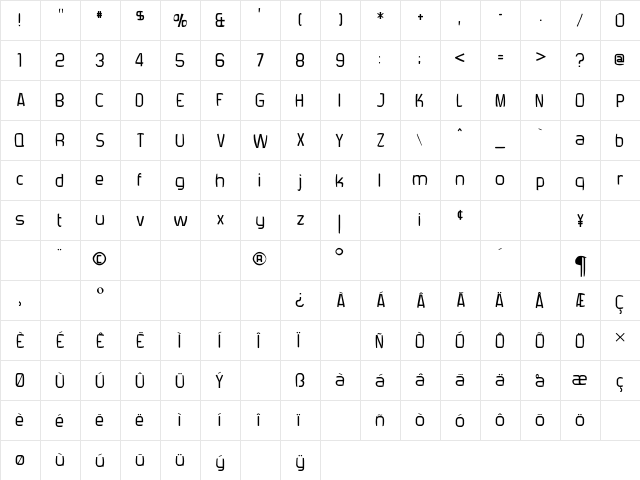
Forgotten Futurist Rotten Regular
Forgotten Futurist Rotten channels digital-age aesthetics through its sharp, structured letterforms — ideal for brands that want to signal innovation.
Pro Tip: Try Forgotten Futurist Rotten with generous letter-spacing in UI labels and navigation — the geometric forms benefit from room to breathe.